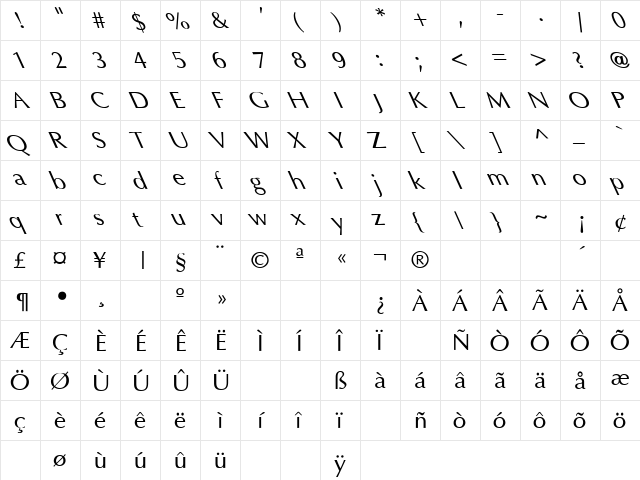
Optima To Lefty Regular
Design Context for Optima To Lefty Typeface
Optima To Lefty takes a measured approach to typography — its balanced proportions and neutral character make it a reliable workhorse for both digital and print work.